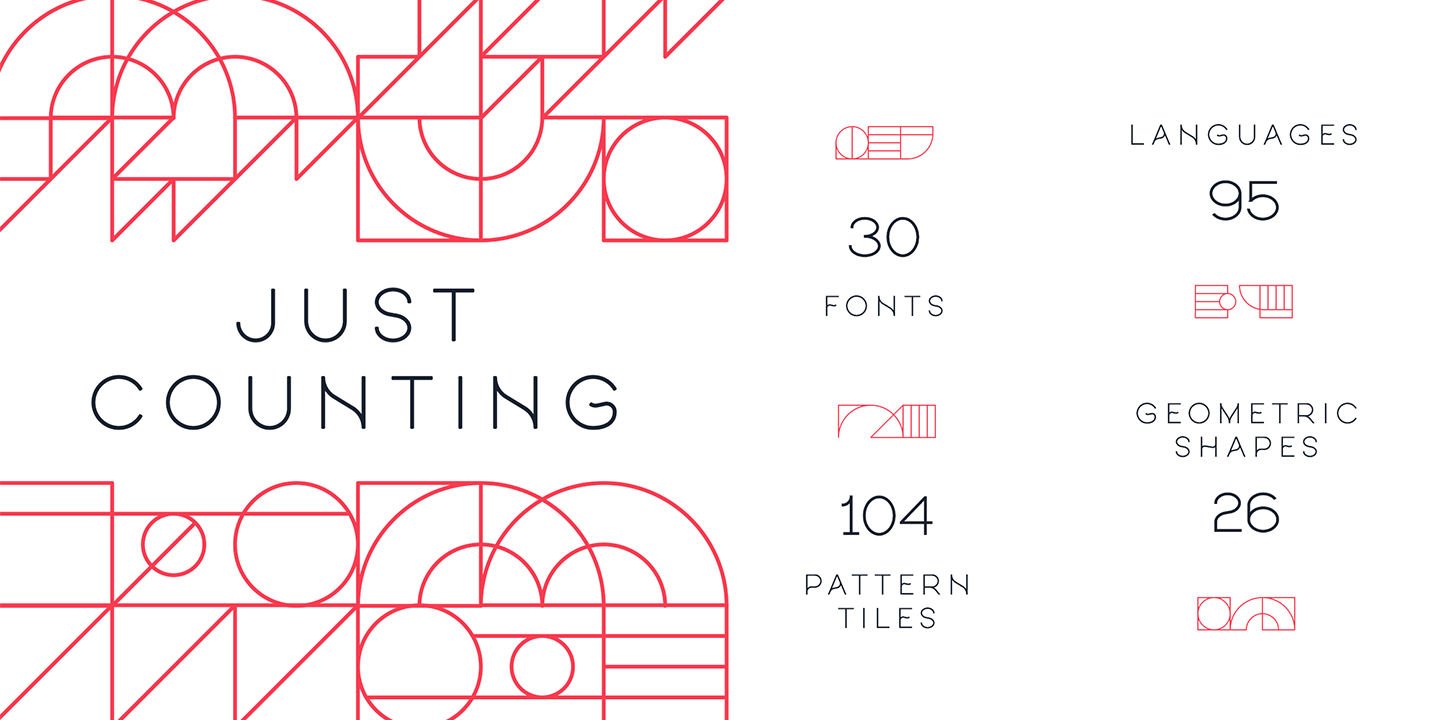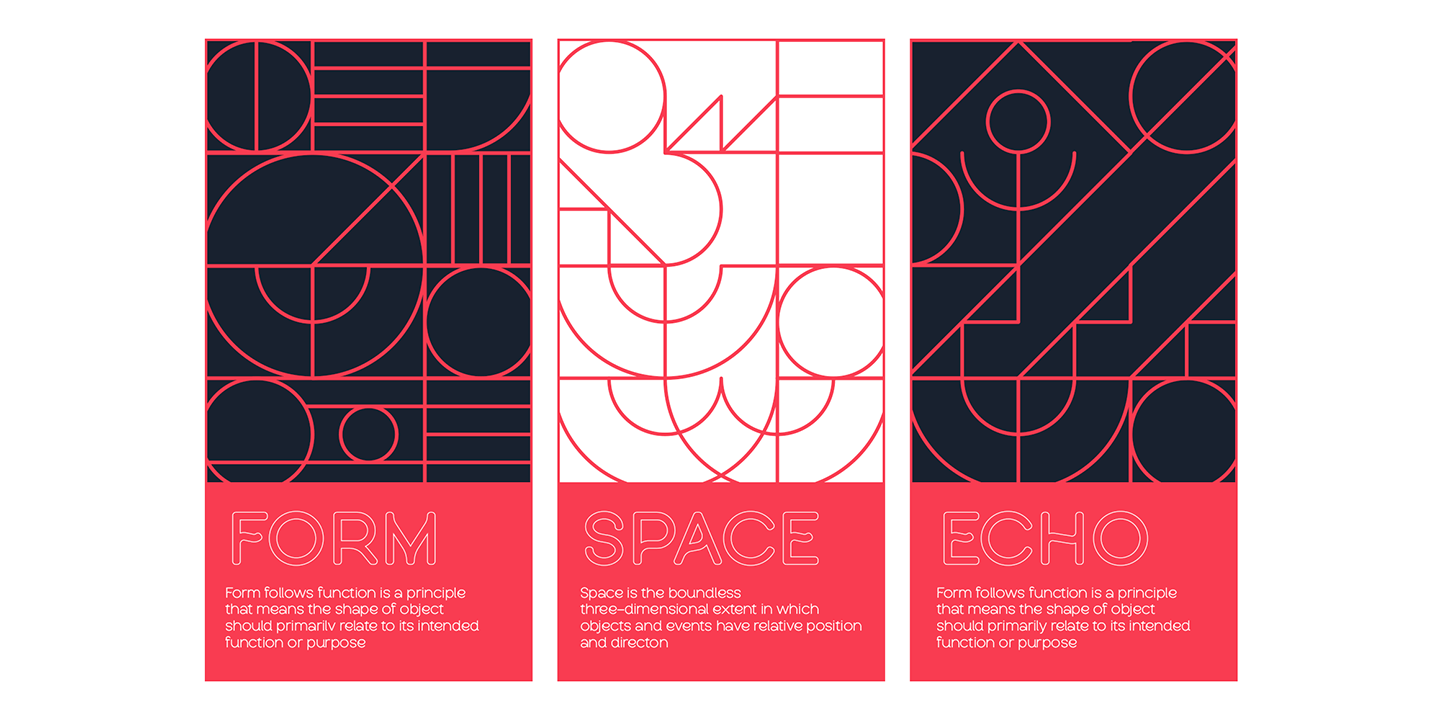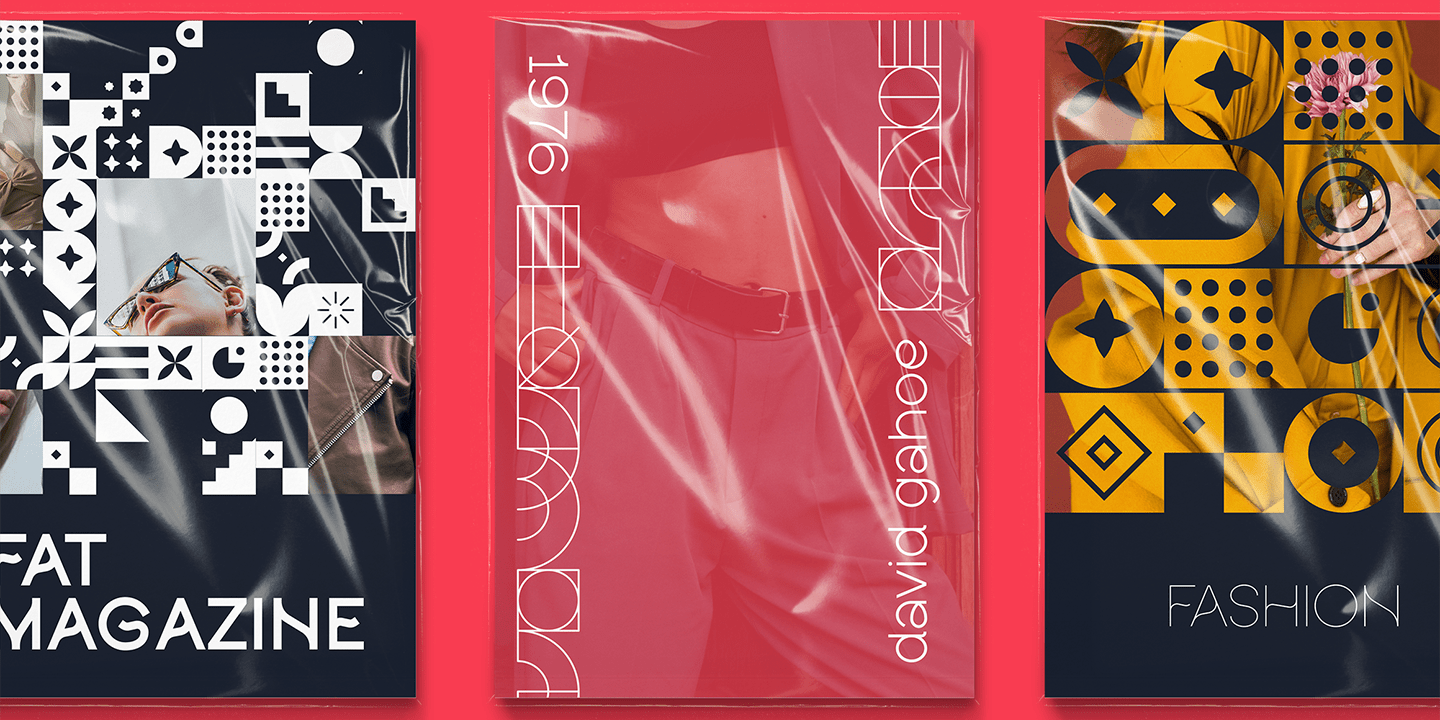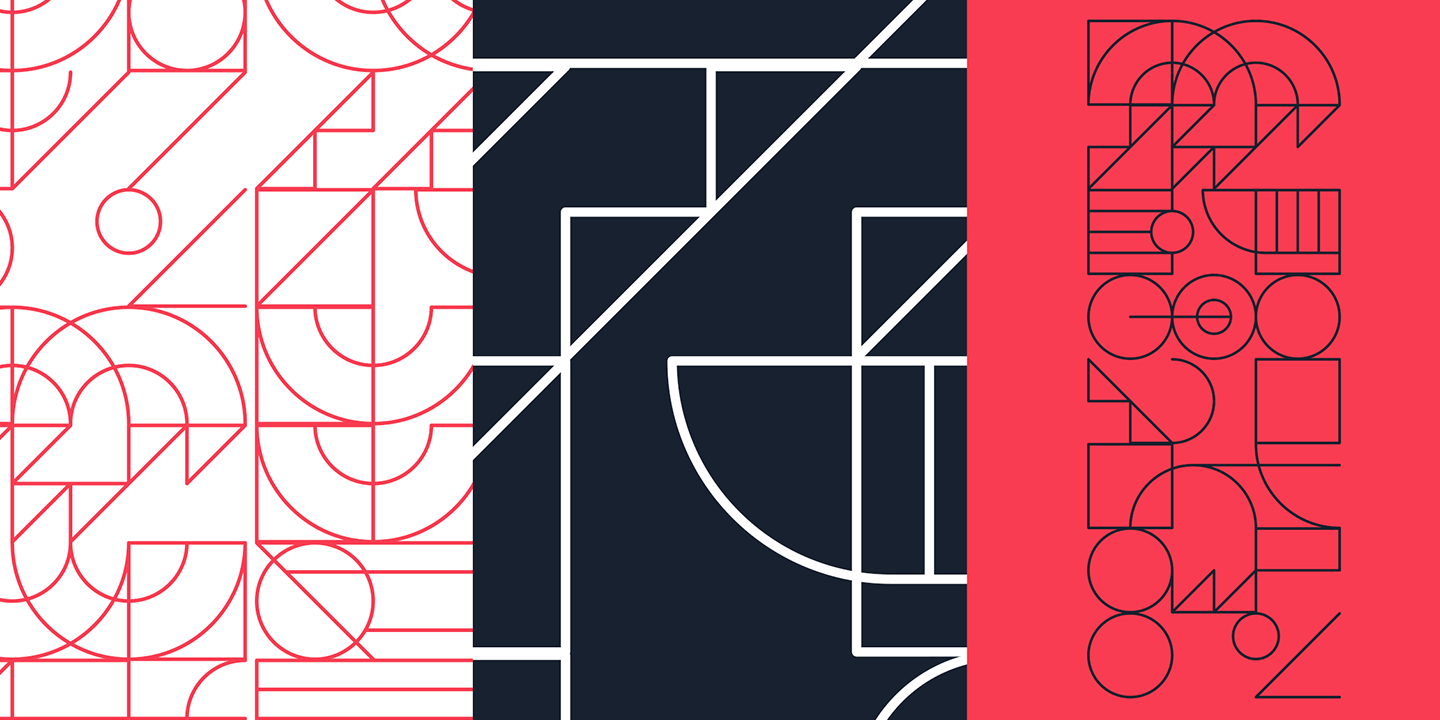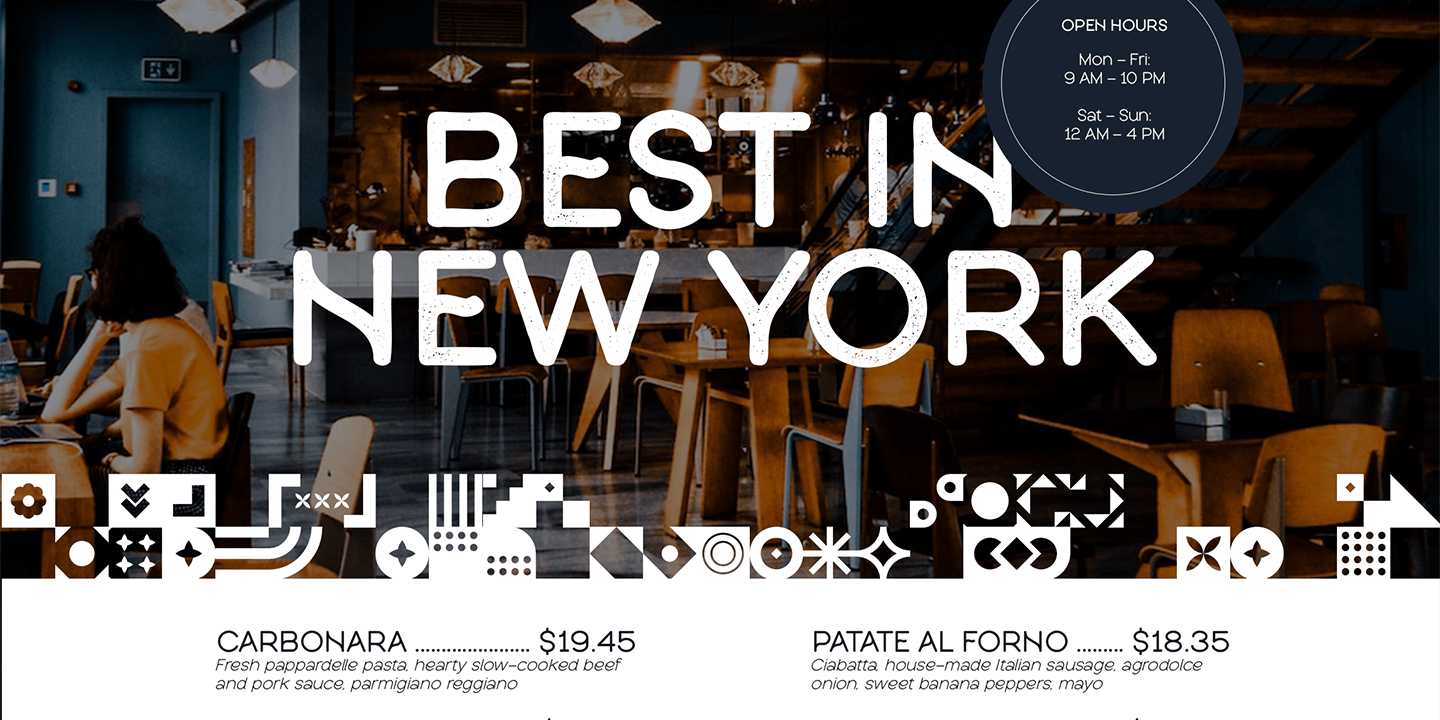
Introducing Luminova: Your Creative Toolkit in 30 Fonts! Luminova is more than just a typeface; it's a versatile collection of 30 fonts designed to light up your creative projects. With its sleek and modern sans serif design, Luminova brings a touch…